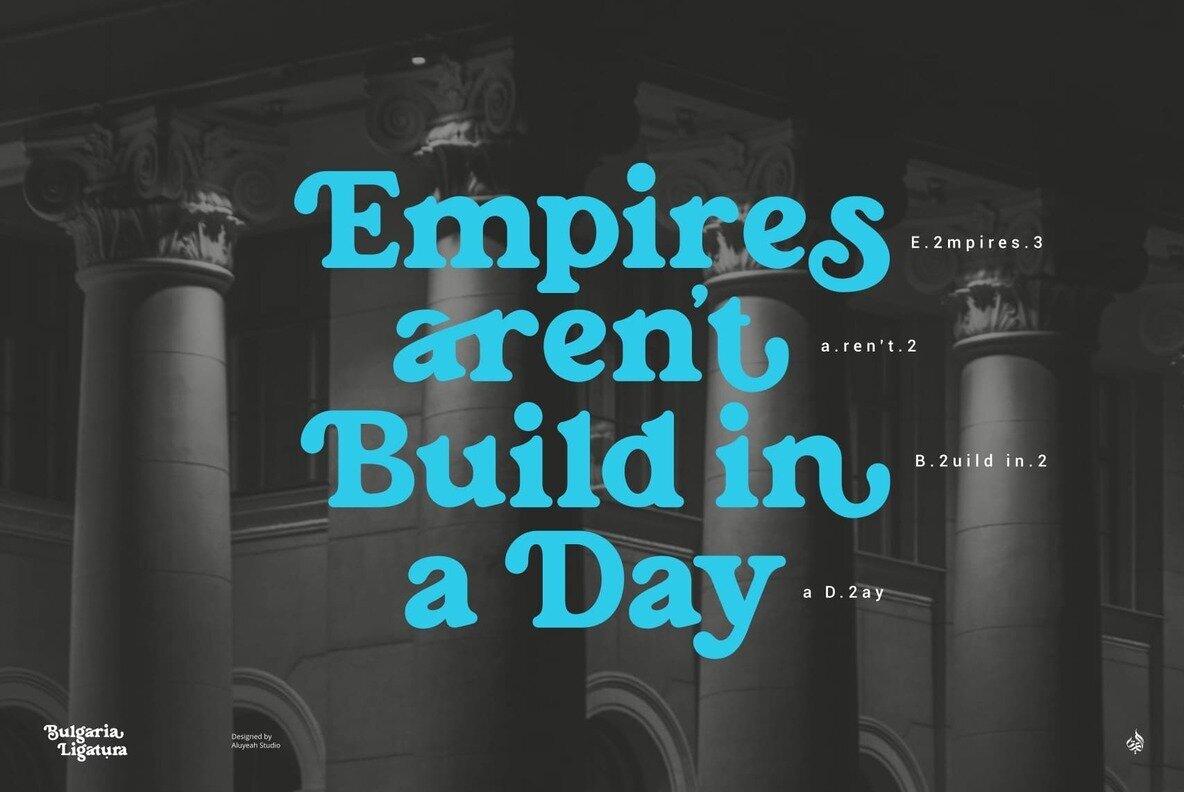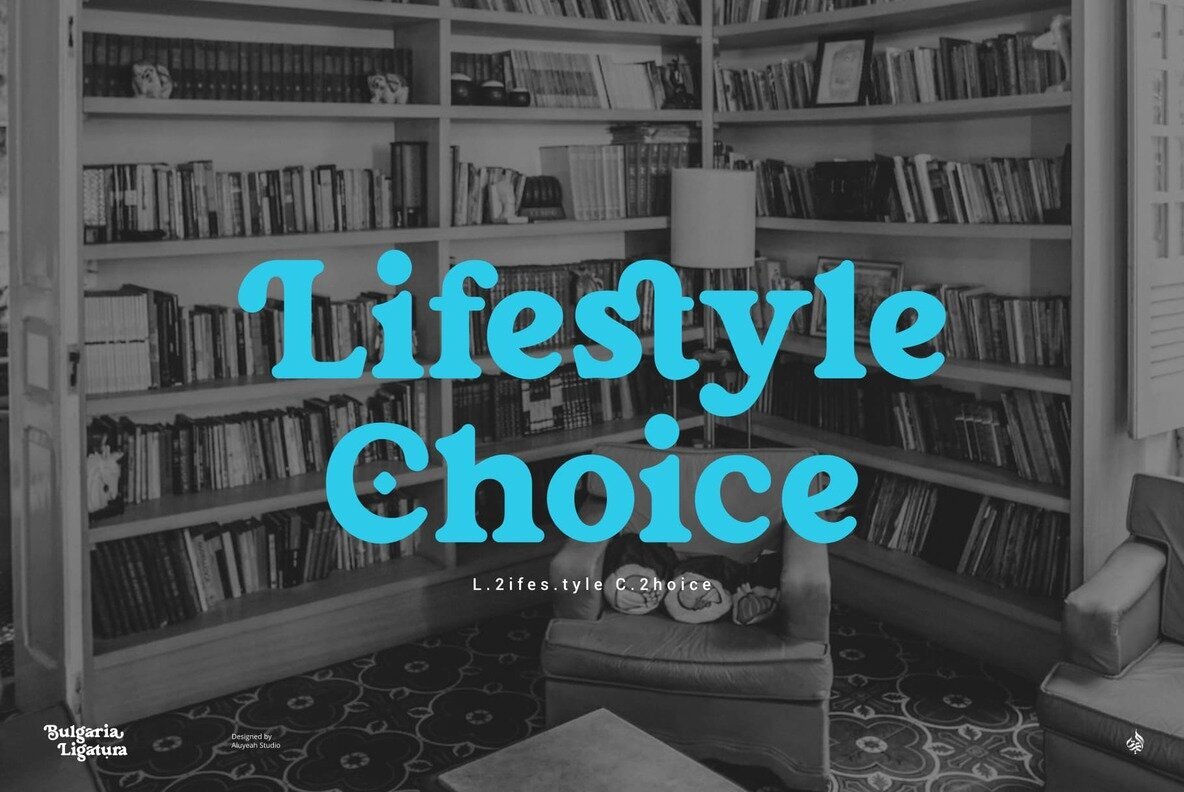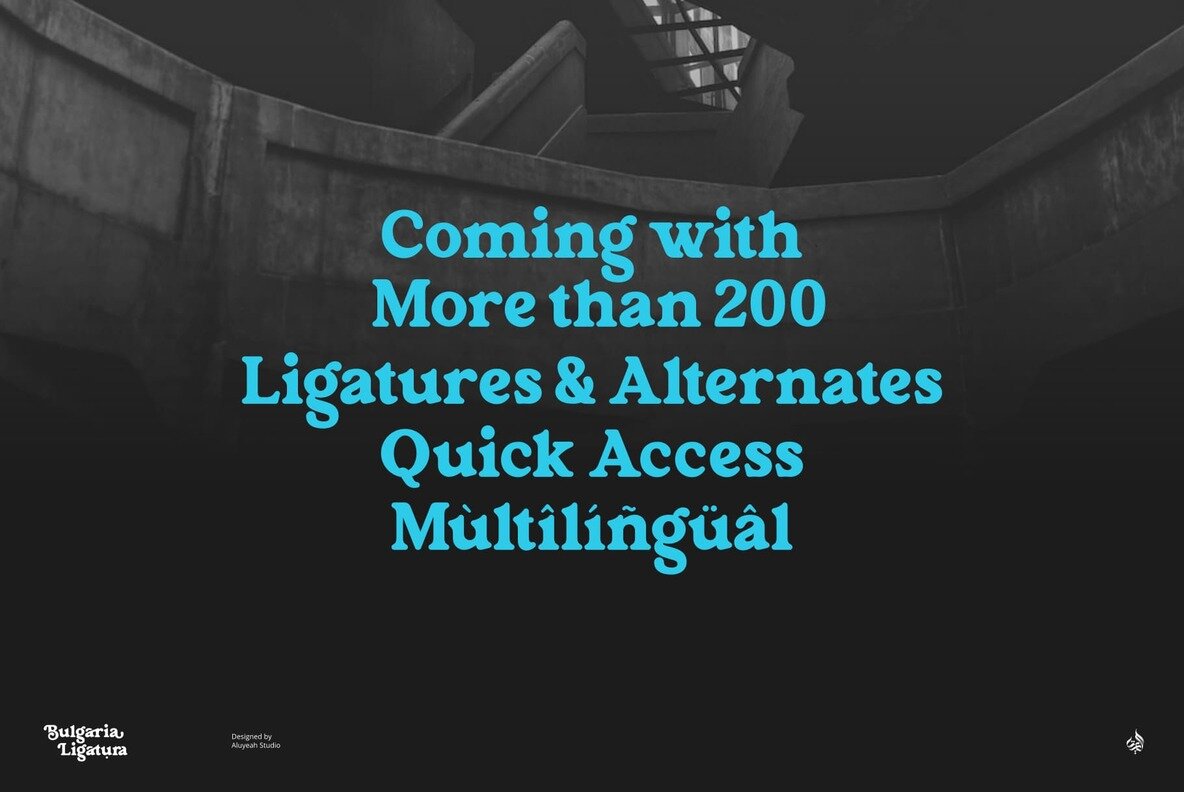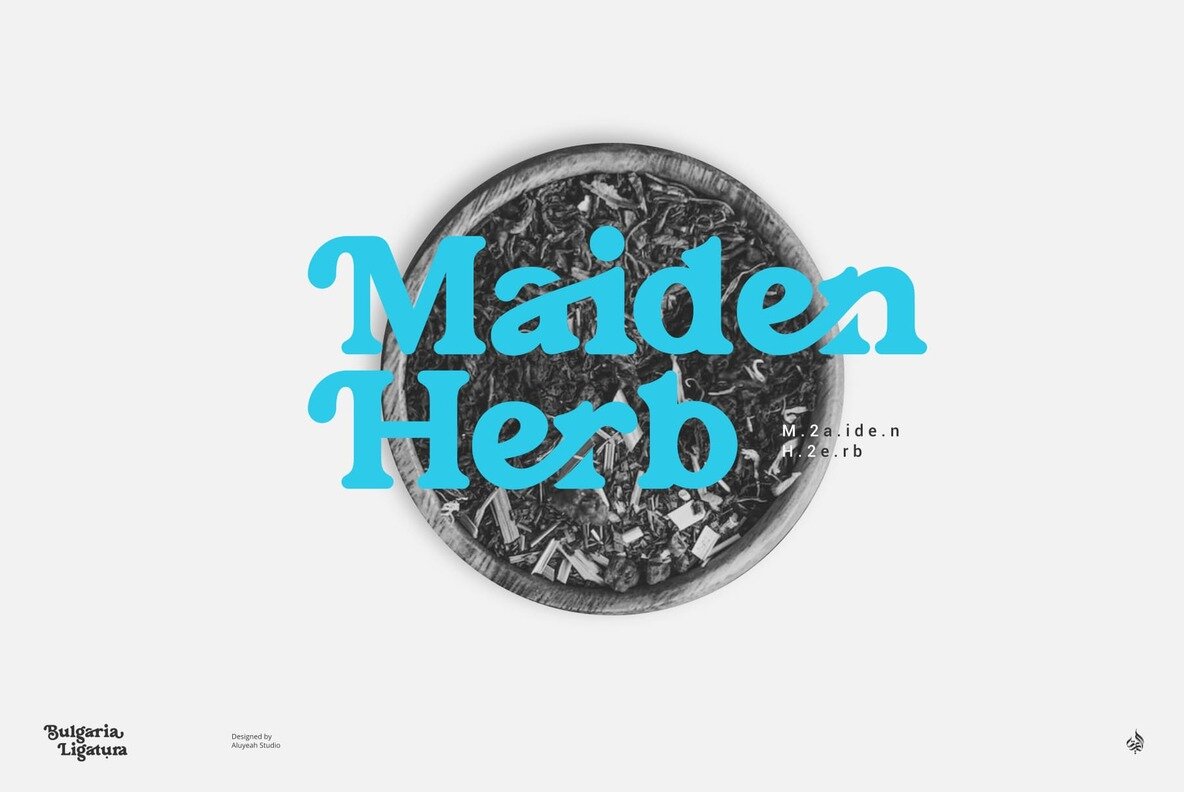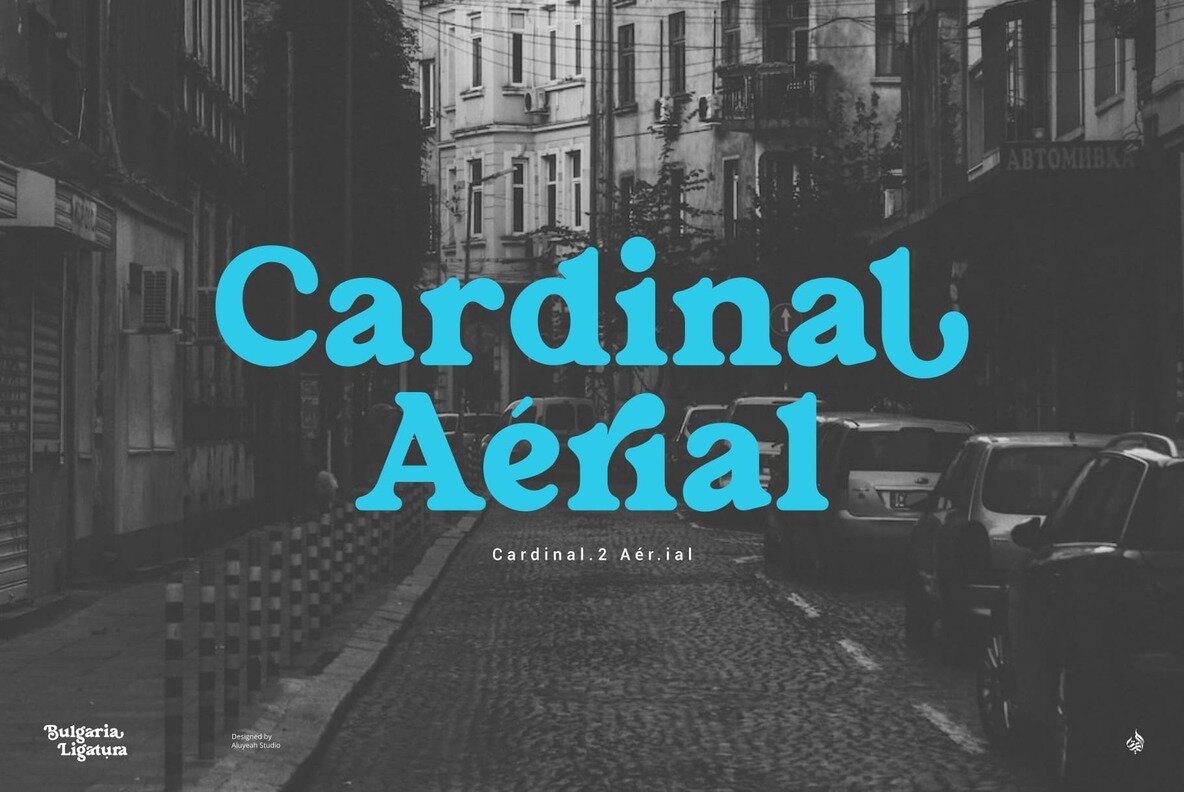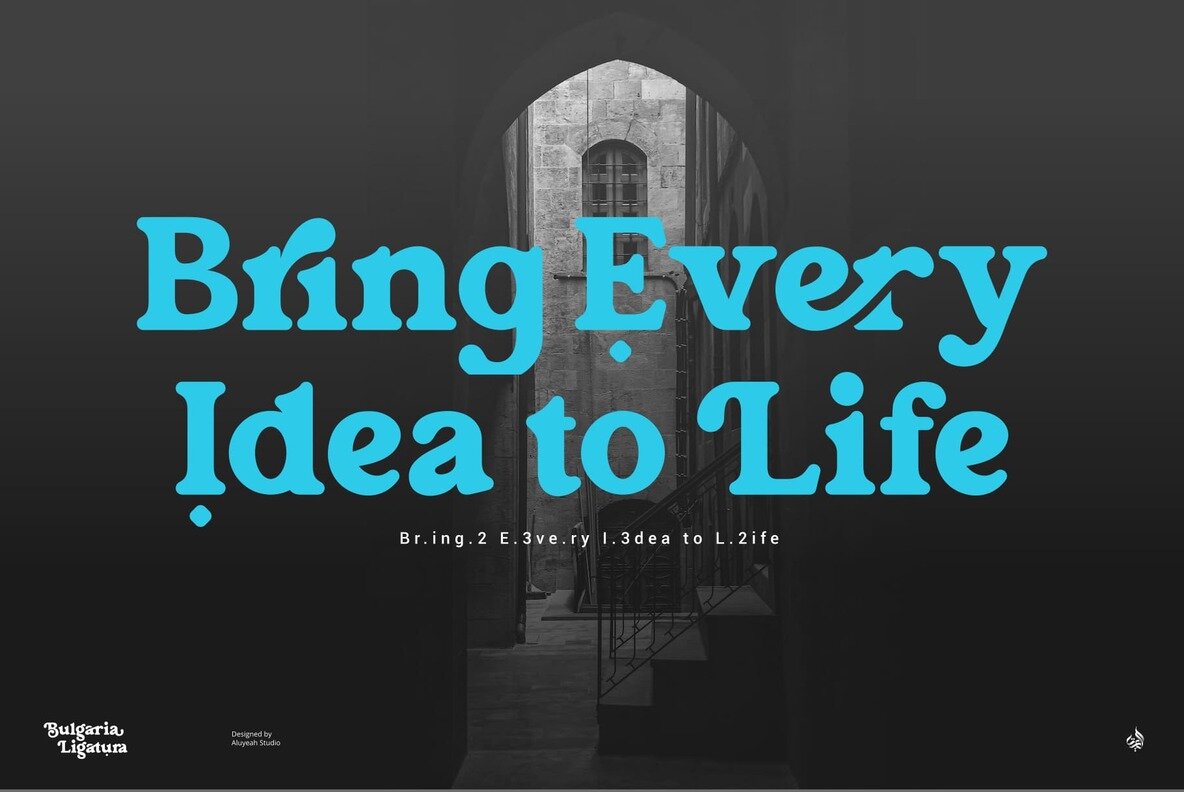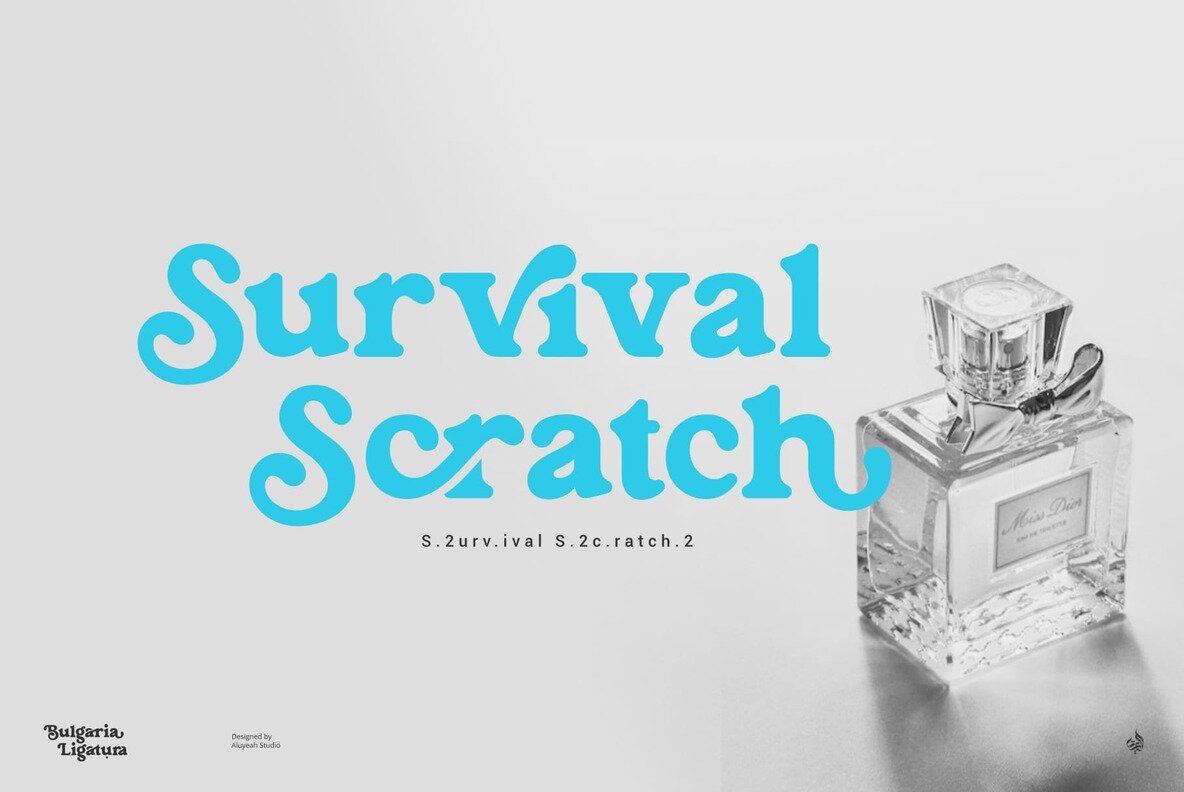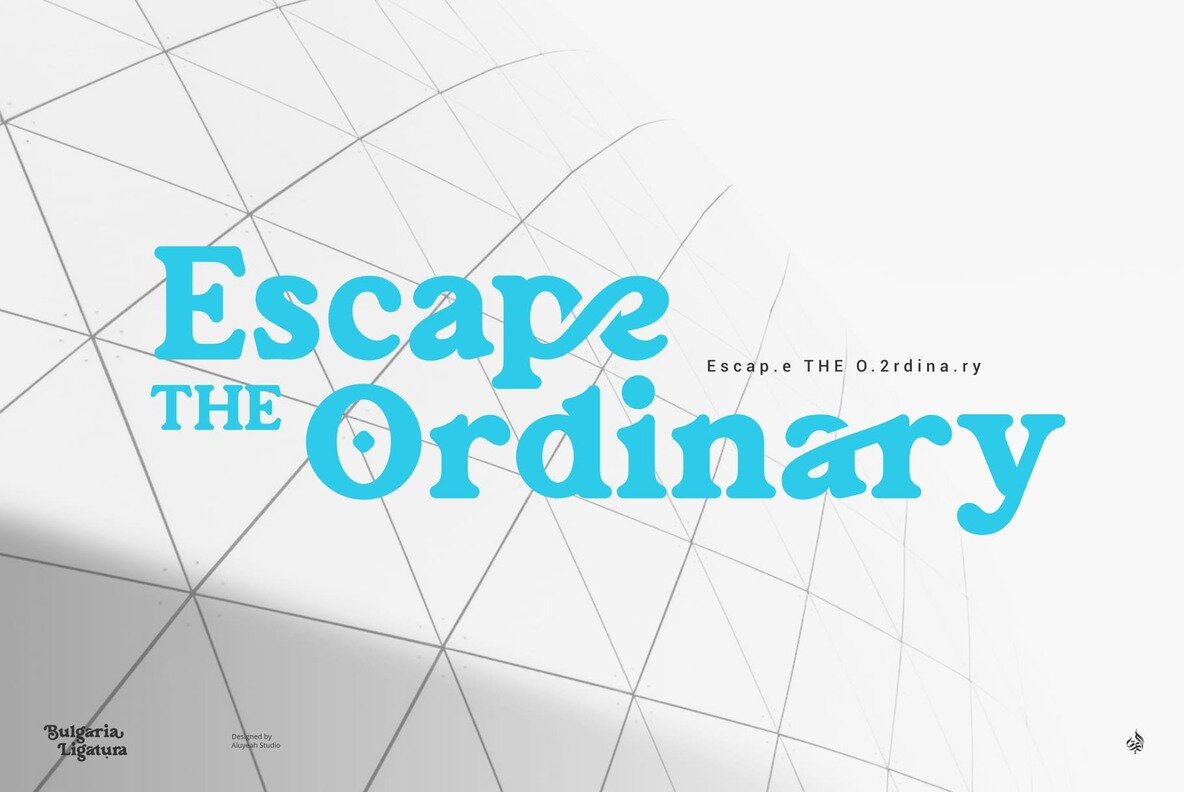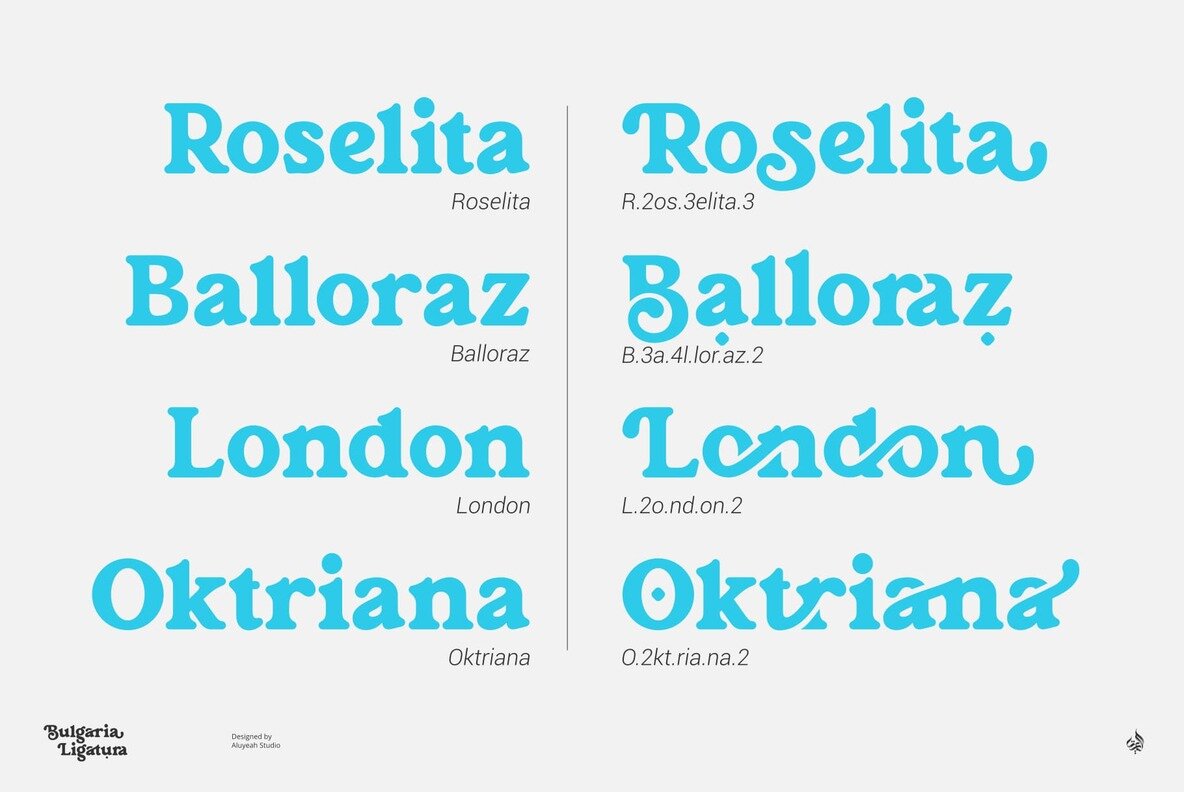
Bulgaria Ligatura Font
Al Bulgaria Ligatura
The Bulgaria Ligatura is a stunning display font that features beautifully crafted ligatures and alternates that provide a visually captivating effect, that will elevate your design to new heights. The bold strokes are a statement of strength and draw the eye, making your designs unmissable. The font is highly customizable, giving you unlimited creative possibilities, ensuring your message is always clear and impactful.